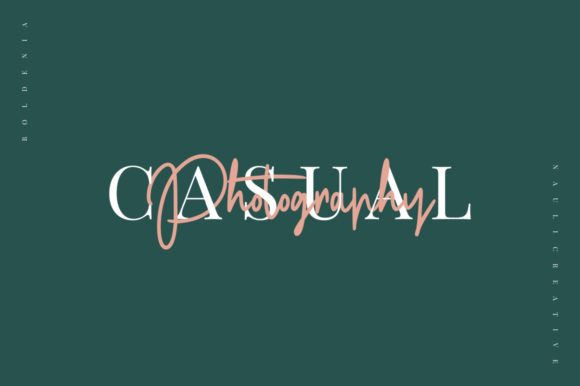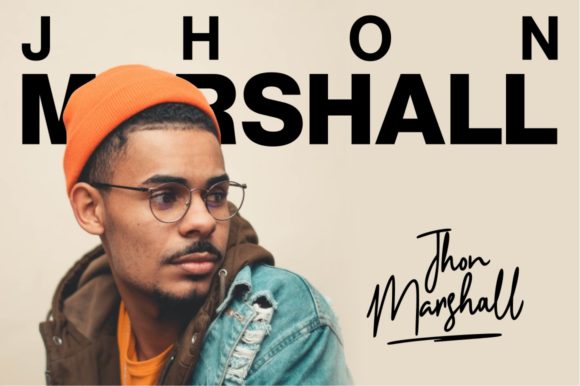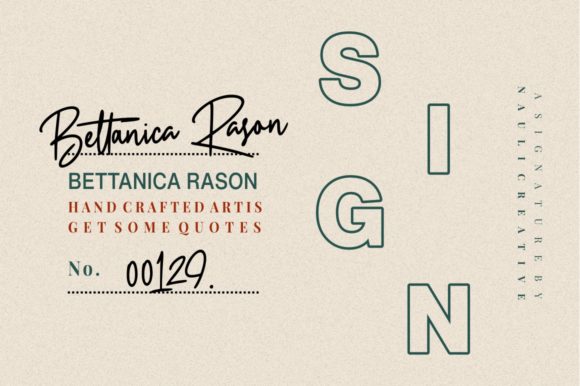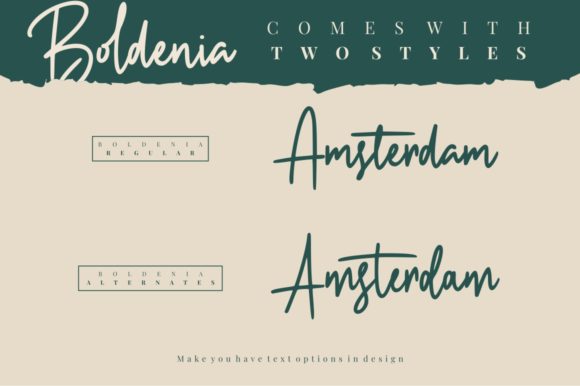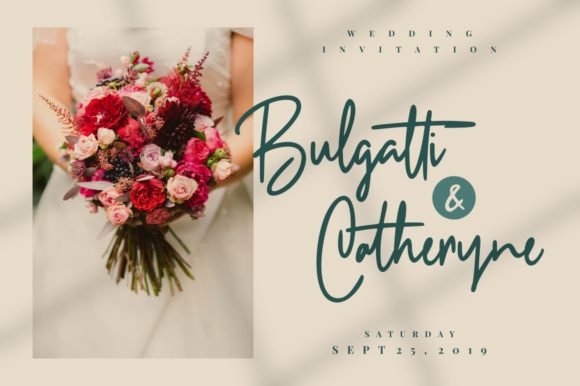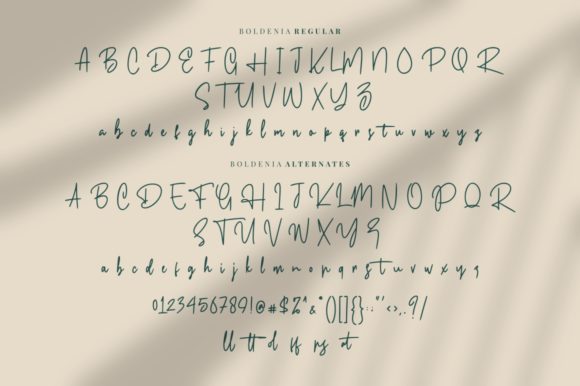
Introducing Boldenia Font: Elevate Your Designs with a Gorgeous Script
Are you looking for a font that can add a touch of elegance and sophistication to your designs? Look no further than Boldenia, a stunning script font with a light feel that’s perfect for a wide range of creative projects. In this article, we’ll take a closer look at Boldenia and explore its features, benefits, and uses, as well as provide tips and inspiration for designers and crafters.
What is Boldenia Font?
Boldenia is a beautiful script font that boasts a contemporary look and feel. Its light, airy texture makes it perfect for designs that require a touch of elegance and refinement. Whether you’re working on a branding project, creating a stylish poster, or crafting a beautiful wedding invitation, Boldenia is the perfect choice.
Key Features of Boldenia Font
- Unique and Elegant Design: Boldenia features a distinctive, hand-crafted design that’s both elegant and refined.
- Light and Airy Texture: The font’s light texture makes it perfect for designs that require a subtle, sophisticated look.
- Contemporary Look and Feel: Boldenia’s modern design ensures that your designs will look fresh and up-to-date.
- Highly Versatile: Boldenia can be used for a wide range of creative projects, from branding and advertising to crafting and DIY projects.
Benefits of Using Boldenia Font
So why choose Boldenia for your next design project? Here are just a few benefits of using this gorgeous script font:
- Adds Elegance and Sophistication: Boldenia’s elegant design and light texture make it perfect for adding a touch of sophistication to your designs.
- Stand Out from the Crowd: With its unique and distinctive design, Boldenia can help your designs stand out from the crowd and grab attention.
- Easy to Read and Understand: Despite its elegant design, Boldenia is highly legible and easy to read, making it perfect for body text and headlines.
So how can you use Boldenia in your designs? Here are a few ideas to get you started:
- Wedding Invitations and Stationery: Boldenia’s elegant design makes it perfect for wedding invitations, stationery, and other formal events.
- Branding and Packaging: Use Boldenia to add a touch of sophistication to your brand’s packaging and marketing materials.
- DIY Projects and Crafts: Boldenia can be used for a wide range of DIY projects, from crafting and scrapbooking to card making and journaling.
- Posters and Flyers: Add a touch of elegance to your posters and flyers with Boldenia’s beautiful script design.
Tips for Using Boldenia Font
Here are a few tips for getting the most out of Boldenia:
- Use it Sparingly: While Boldenia is a beautiful font, it can be overwhelming if used too much. Use it sparingly to add emphasis and elegance to your designs.
- Pair it with Other Fonts: Boldenia pairs well with a wide range of fonts, from sans-serif fonts like Arial and Helvetica to serif fonts like Times New Roman.
- Experiment with Colors and Textures: Boldenia looks great in a wide range of colors and textures, so don’t be afraid to experiment and find the perfect combination for your design.
In conclusion, Boldenia is a gorgeous script font that’s perfect for designers and crafters looking to add a touch of elegance and sophistication to their designs. With its unique and elegant design, light texture, and contemporary look and feel, Boldenia is the perfect choice for a wide range of creative projects. So why not give it a try and see how it can elevate your designs?